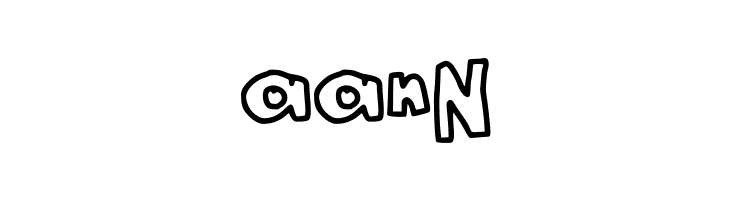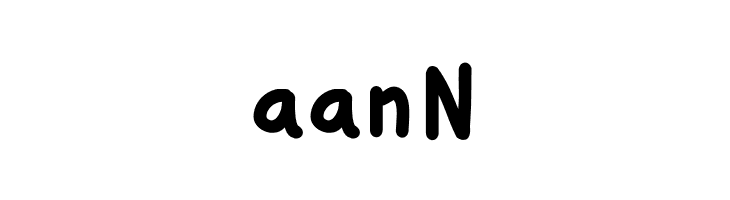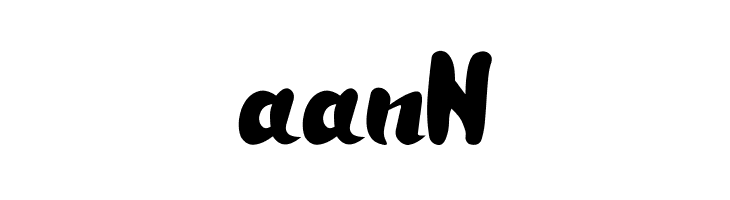
A playful, bold font with rounded characters and a whimsical style.
A playful, hand-drawn style font with rounded, bold characters.
A tall, narrow, and modern font with clean lines and a sleek appearance.
A modern, italic font with elongated, narrow characters.
A playful, hand-drawn font with bold outlines and a whimsical style.
A bold, playful font with thick, rounded strokes and a hand-drawn feel.
A lively handwritten script with tall, narrow, and fluid letterforms.
A bold, geometric font with a modern and assertive style.
A bold, playful font with rounded edges and a hand-drawn feel.
A dynamic handwritten font with fluid, cursive letterforms and varied stroke thickness.